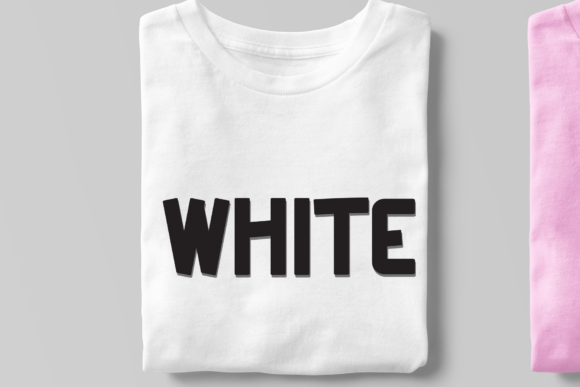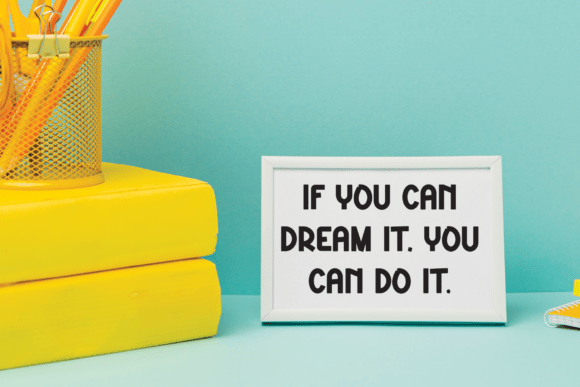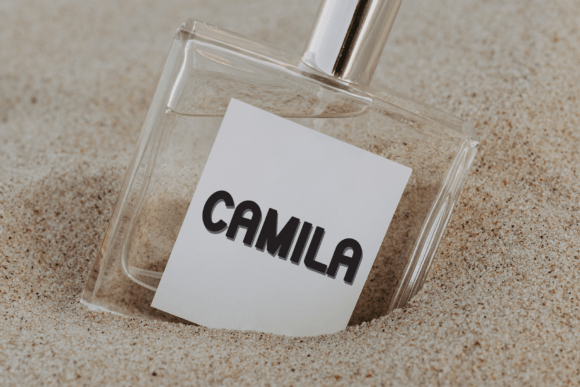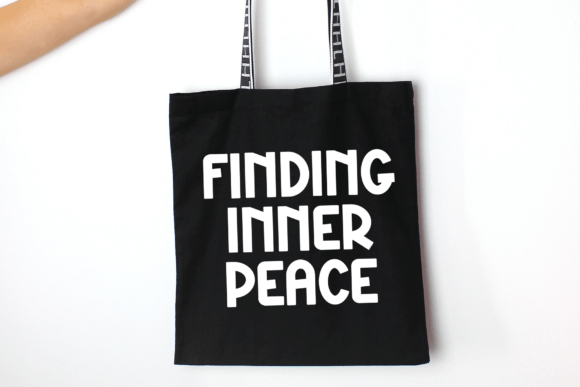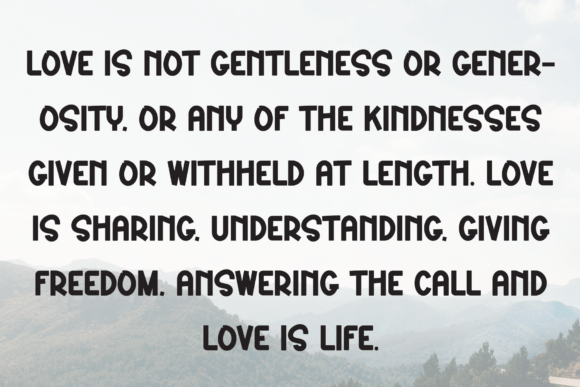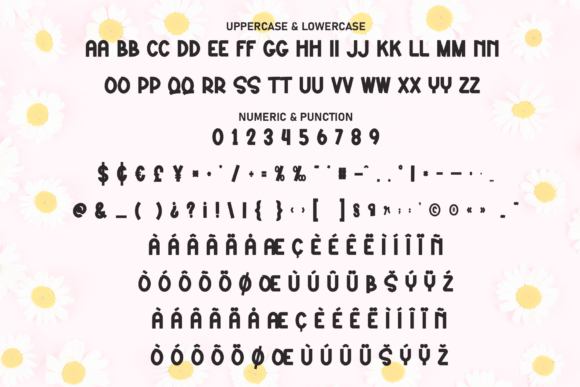
Candy Daisy Font: The Sweetest Addition to Your Design Projects
Are you looking for a font that can bring a touch of warmth and approachability to your design projects? Look no further than the Candy Daisy font! This casual and neat display font is perfect for adding a dash of charm to your branding, headlines, and everyday designs. In this article, we’ll dive into the features and benefits of the Candy Daisy font, and explore how it can elevate your designs to the next level.
A Clean and Balanced Design
The Candy Daisy font boasts a clean structure and approachable style, making it perfect for a wide range of design applications. The balanced letterforms offer exceptional readability and charm, ensuring that every message feels genuine and inviting. Whether you’re designing a logo, creating a social media graphic, or crafting a website, the Candy Daisy font is sure to make a lasting impression.
Perfect for Branding and Headlines
Branding and headlines are crucial elements of any design project, and the Candy Daisy font is specifically designed to shine in these areas. Its clean and modern aesthetic makes it perfect for creating eye-catching logos, titles, and headings that grab attention and convey your message with clarity. The font’s approachable style also helps to create a friendly and approachable tone, making it ideal for brands that want to connect with their audience on a personal level.
Everyday Designs Made Easy
The Candy Daisy font is not just limited to branding and headlines; it’s also perfect for everyday designs. Whether you’re creating flyers, brochures, or social media graphics, this font is sure to add a touch of warmth and personality to your designs. Its readability and charm make it easy to use in a variety of contexts, from formal to informal, and its clean structure ensures that your message is always conveyed with clarity.
What Makes Candy Daisy Font Special?
- Clean Structure: The Candy Daisy font features a clean and modern structure that makes it perfect for a wide range of design applications.
- Approachable Style: The font’s approachable style creates a friendly and inviting tone, making it ideal for brands that want to connect with their audience on a personal level.
- Balanced Letterforms: The balanced letterforms offer exceptional readability and charm, ensuring that every message feels genuine and inviting.
- Versatility: The Candy Daisy font is perfect for a wide range of design applications, from branding and headlines to everyday designs.
How to Use Candy Daisy Font in Your Designs
Using the Candy Daisy font in your designs is easy! Here are a few tips to get you started:
- Pair it with Other Fonts: The Candy Daisy font pairs well with other fonts, so feel free to experiment with different combinations to find the perfect look for your design.
- Use it for Headlines: The font’s clean structure and approachable style make it perfect for headlines and titles.
- Add a Pop of Color: The Candy Daisy font looks great in a variety of colors, so don’t be afraid to add a pop of color to your design.
In conclusion, the Candy Daisy font is a versatile and charming addition to any design project. Its clean structure, approachable style, and balanced letterforms make it perfect for branding, headlines, and everyday designs. Whether you’re a designer or crafter, this font is sure to bring a touch of warmth and personality to your designs. So why not give it a try and see the difference it can make?
- What is the Candy Daisy font? The Candy Daisy font is a casual and neat display font designed to bring warmth and clarity to your projects.
- What is the Candy Daisy font used for? The font is perfect for branding, headlines, and everyday designs.
- Is the Candy Daisy font easy to read? Yes, the font features balanced letterforms that offer exceptional readability and charm.